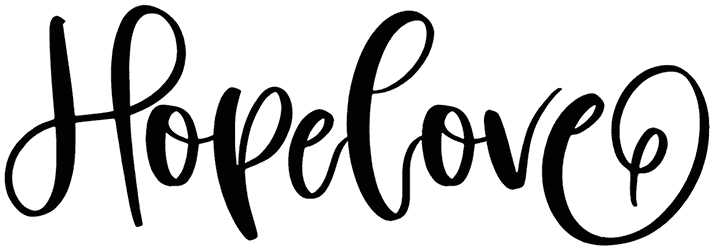
Aminah Font
Aminah is the most intimate font that you can utilize to congratulate your loved ones on various events. The imitation of normal human handwriting has made it look much more realistic. It has the power to draw your attention and highlight your projects successfully.
This love font conveys various feelings depending on the background image. So if you’re looking to develop a sense of intimacy and elegance in your writing, Aminah can be helpful.